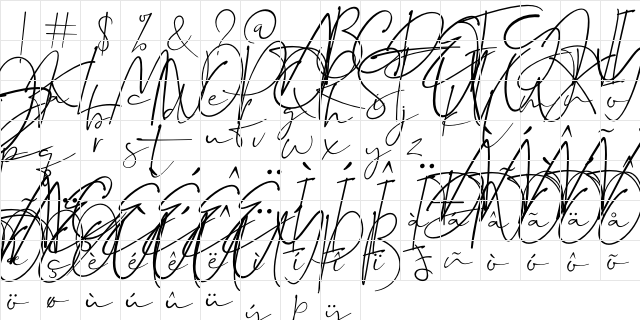
Dalmatins Regular
Design Context for Dalmatins Typeface
Dalmatins is a composed and adaptable typeface that performs quietly and consistently across a wide range of design contexts.